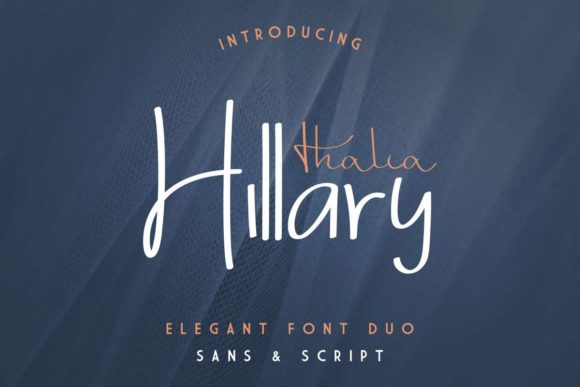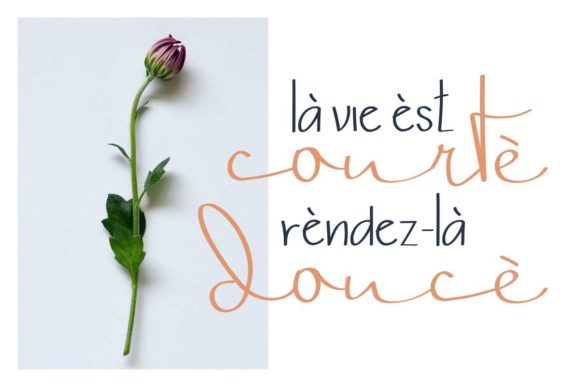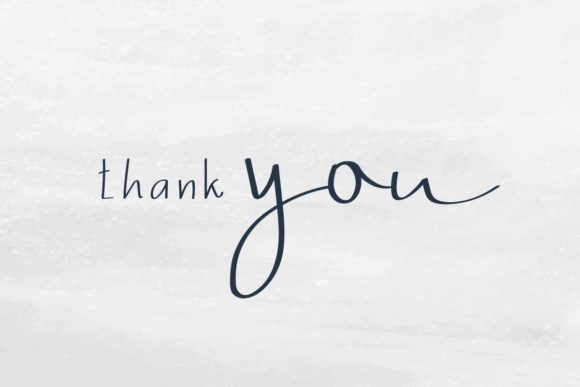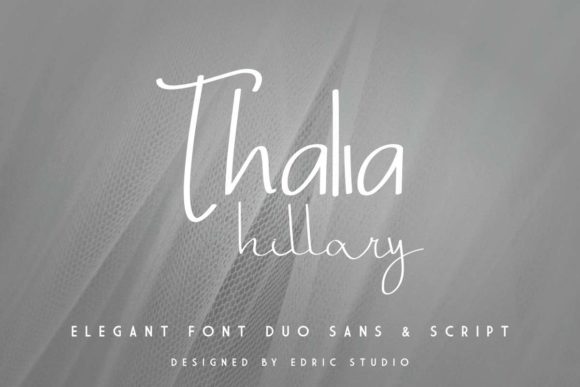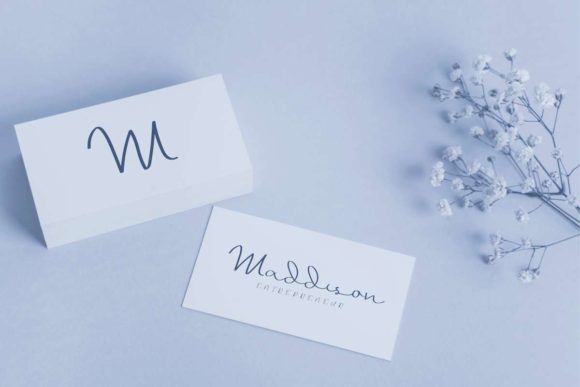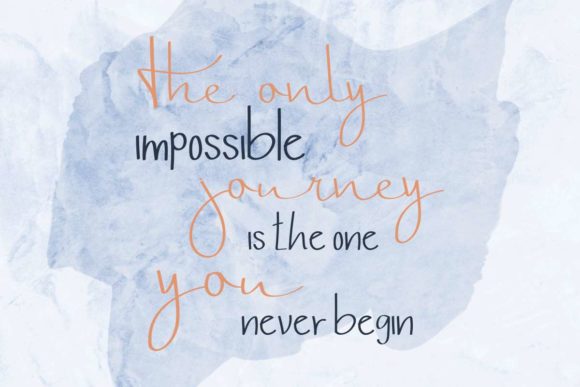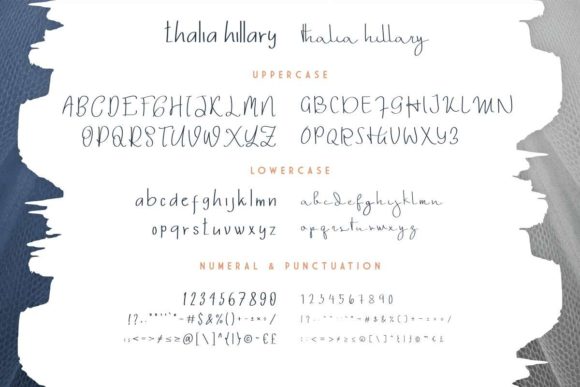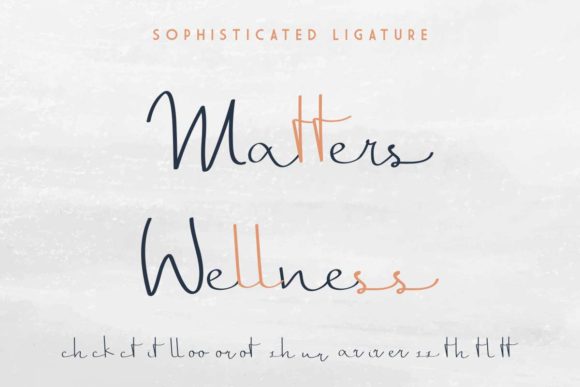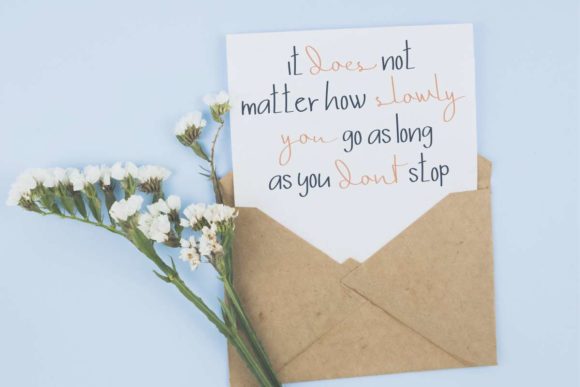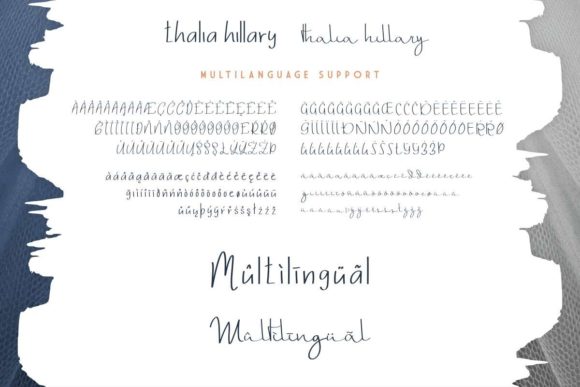
Thalia Hillary Font
About Thalia Hillary Font
Thalia Hillary is a beautiful and modern script font with a unique style. It is perfectly suited for a wide variety of designs!